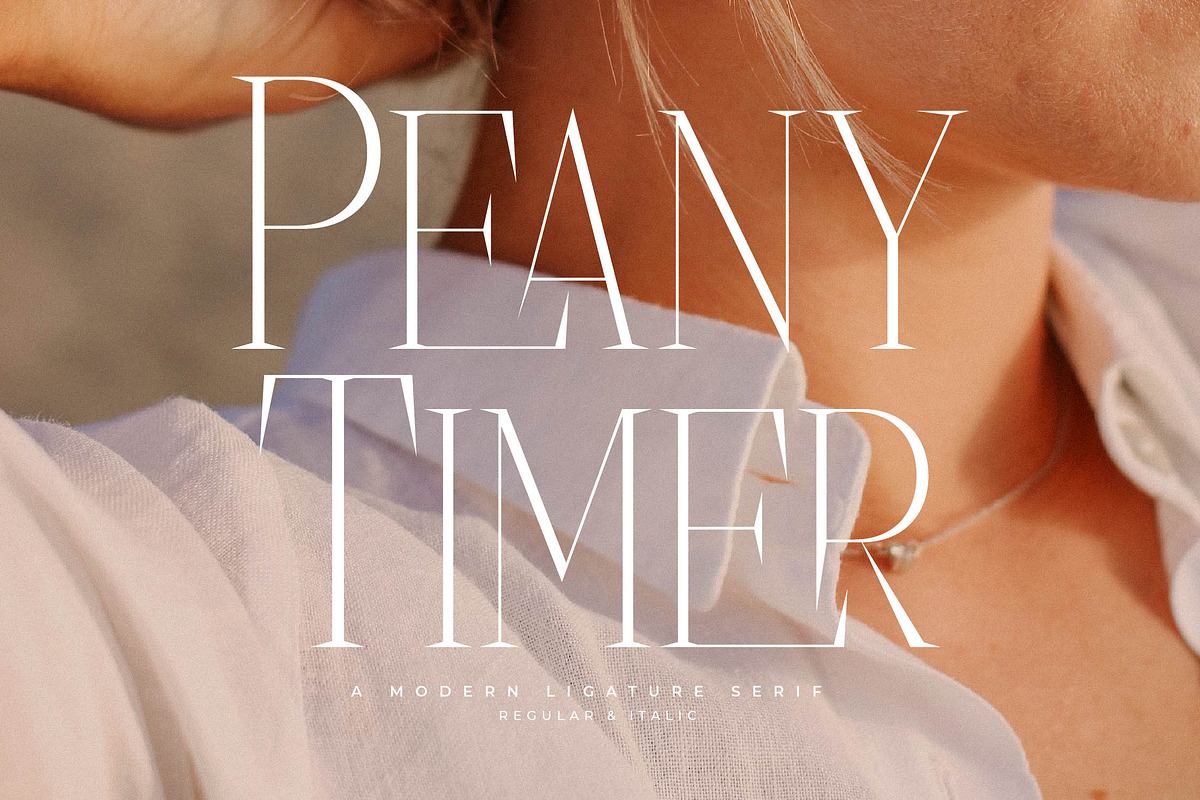
Peany Timer – A Modern Ligature Serif Font Free Download is a chic and contemporary typeface that blends timeless serif elegance with stylish, creative ligatures. Ideal for branding, fashion editorials, wedding invitations, luxury packaging, and social media graphics, this font brings a refined and artistic flair to any design.
Its sleek letterforms, soft contrast, and custom ligatures make Peany Timer perfect for creating logos and headlines that feel both classy and trend-forward. Whether you're aiming for minimal sophistication or bold, stylish vibes, this font delivers with versatility and grace. It’s free to download for testing, but a commercial license is required for any professional or monetized use.
Make a statement with Peany Timer – A Modern Ligature Serif Font Free Download, and elevate your typography with subtle elegance and high-end charm. A must-have for designers crafting premium, detail-focused visuals.